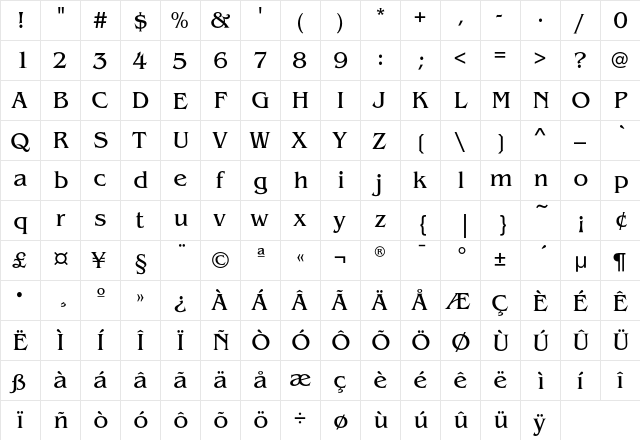
BenguiatEF-Book Regular Font Preview
BenguiatEF-Book Regular
Design Context for BenguiatEF-Book Typeface
BenguiatEF-Book is a composed and adaptable typeface that performs quietly and consistently across a wide range of design contexts.